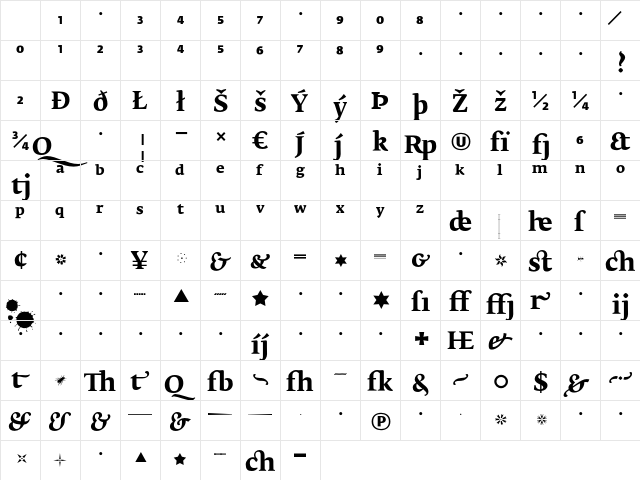
Complete Fedra Serif B Bold glyph index. Displaying only characters natively supported by Fedra Serif B Bold font.
Fedra Serif B carries the refined structure of traditional serif typography, with bracketed terminals and considered proportions that communicate credibility and craft. Its bold stroke weight gives it real presence on the page.